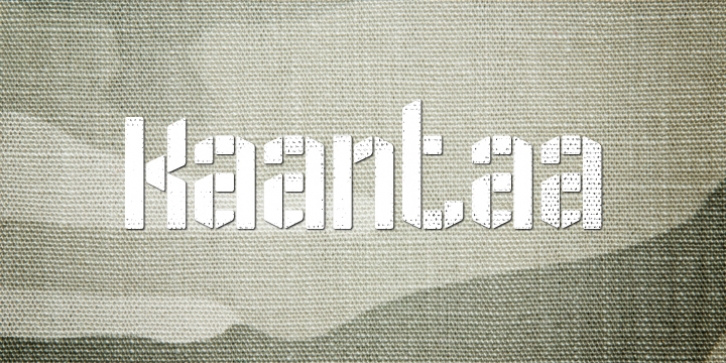
FM Kaantaa downloadDesigner: Elwin Berlips
Publisher: FontMeister
Kaantaa is a bold typeface that draws inspiration from stencil and technical typfaces. It has been thought as a display typeface.